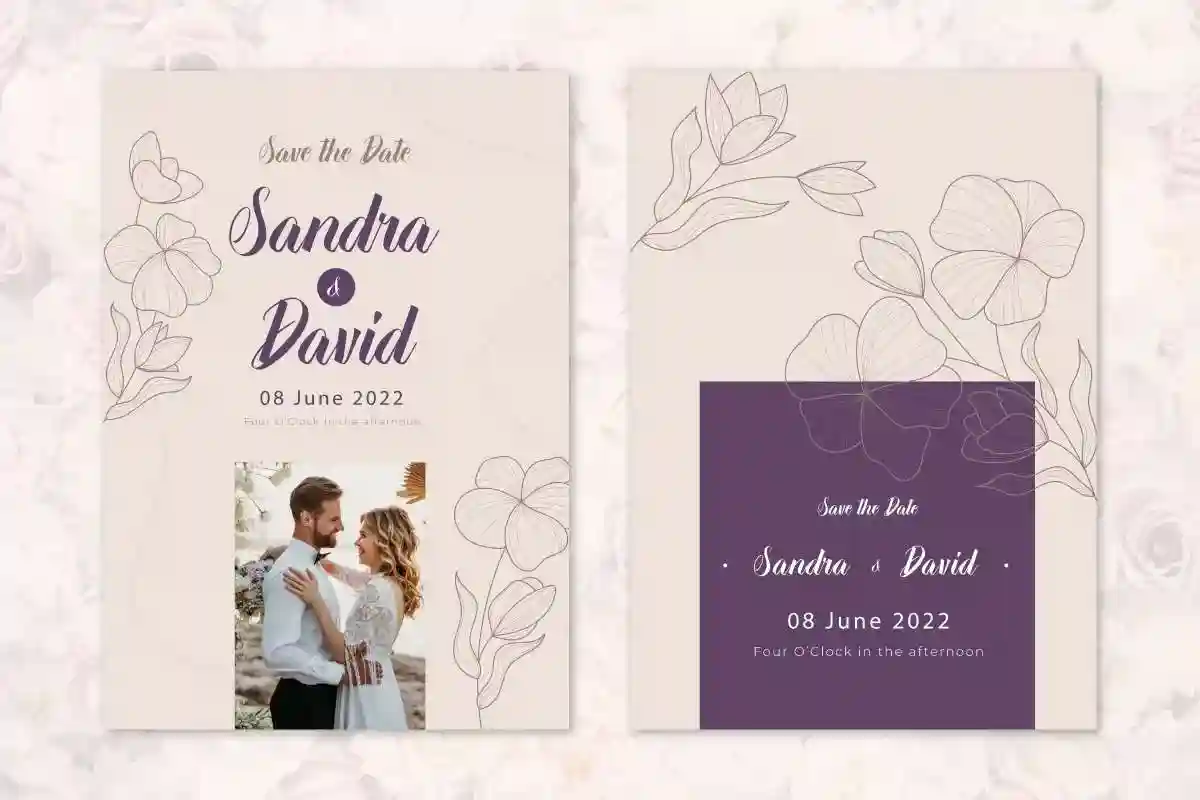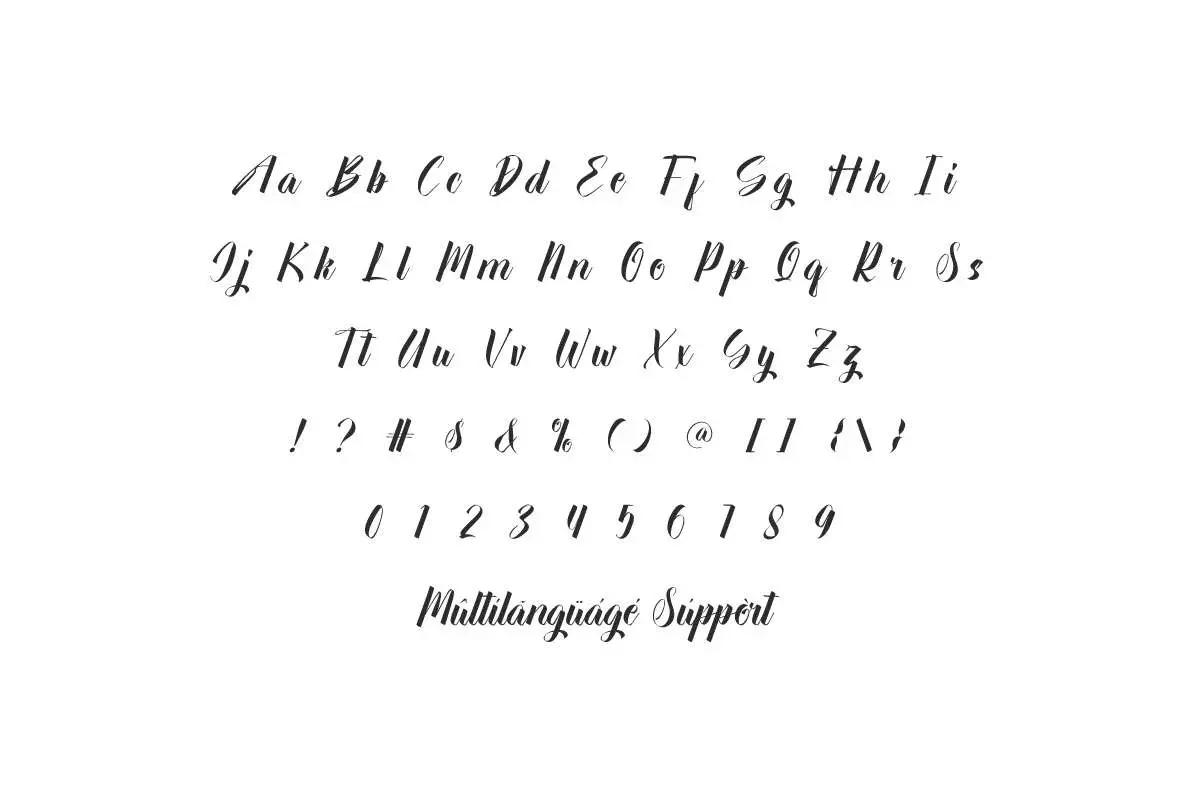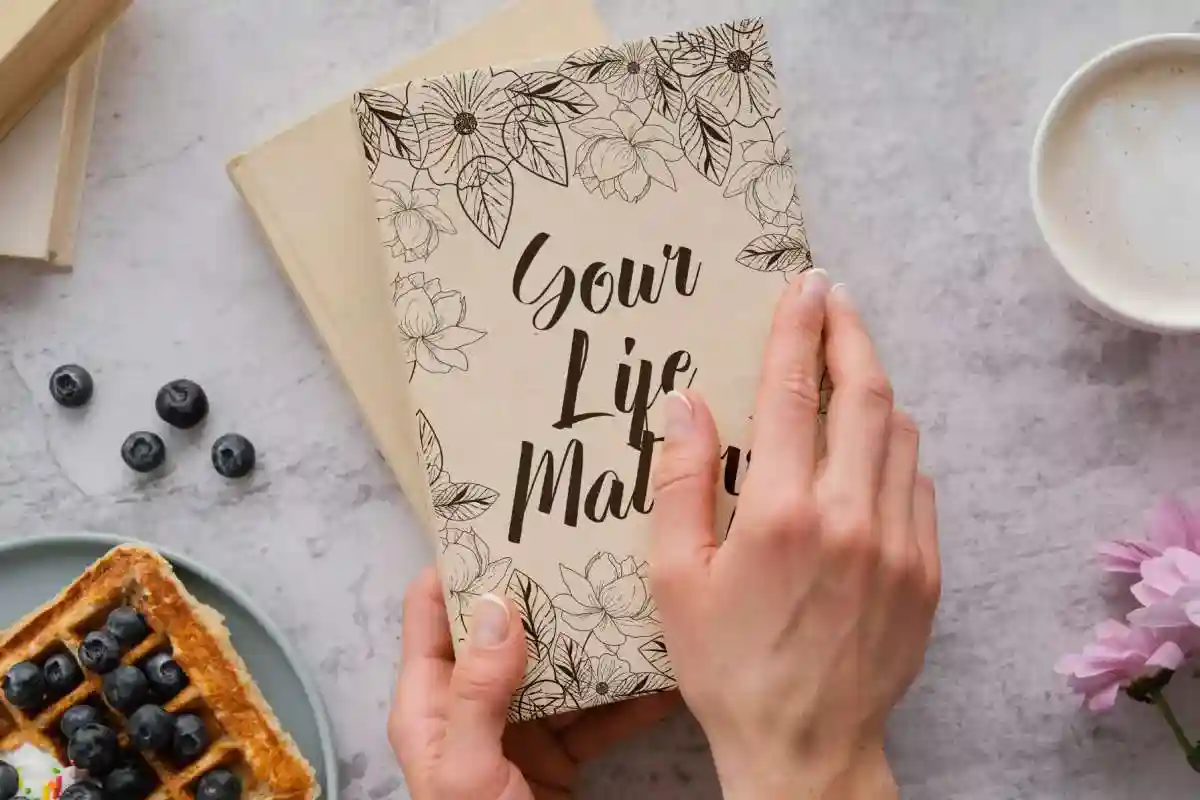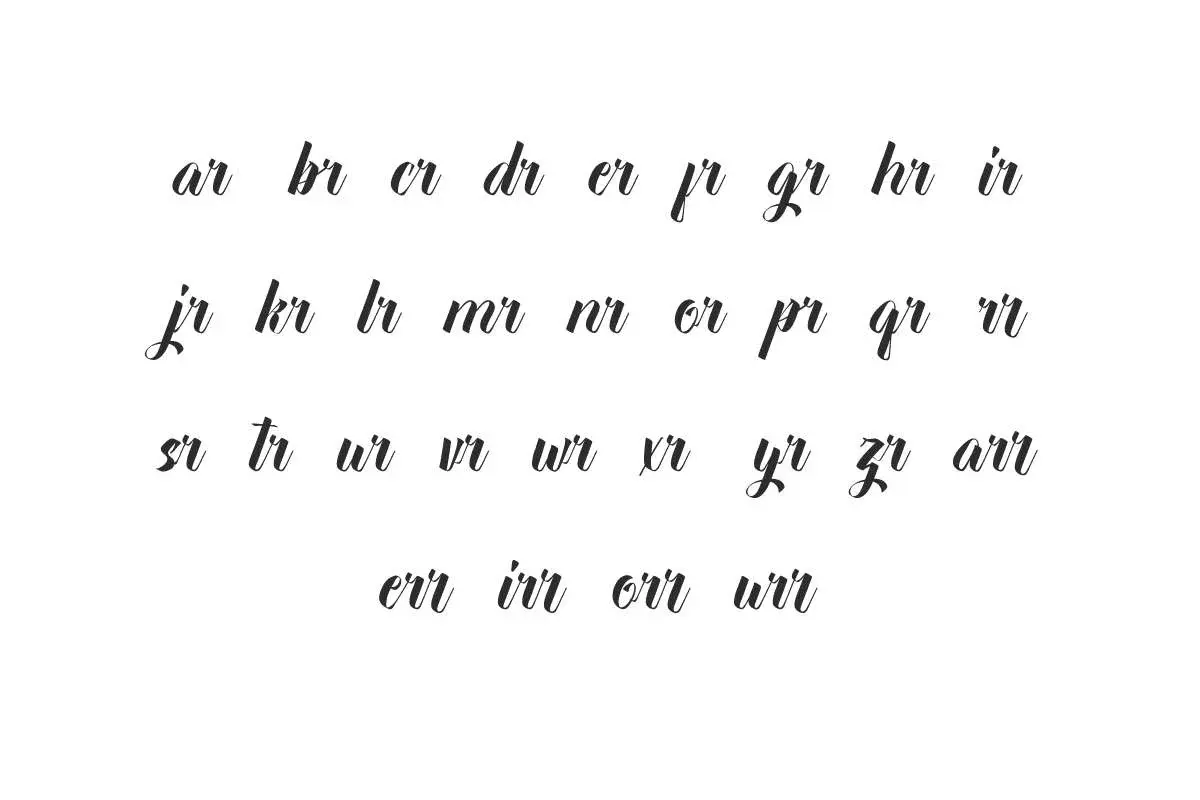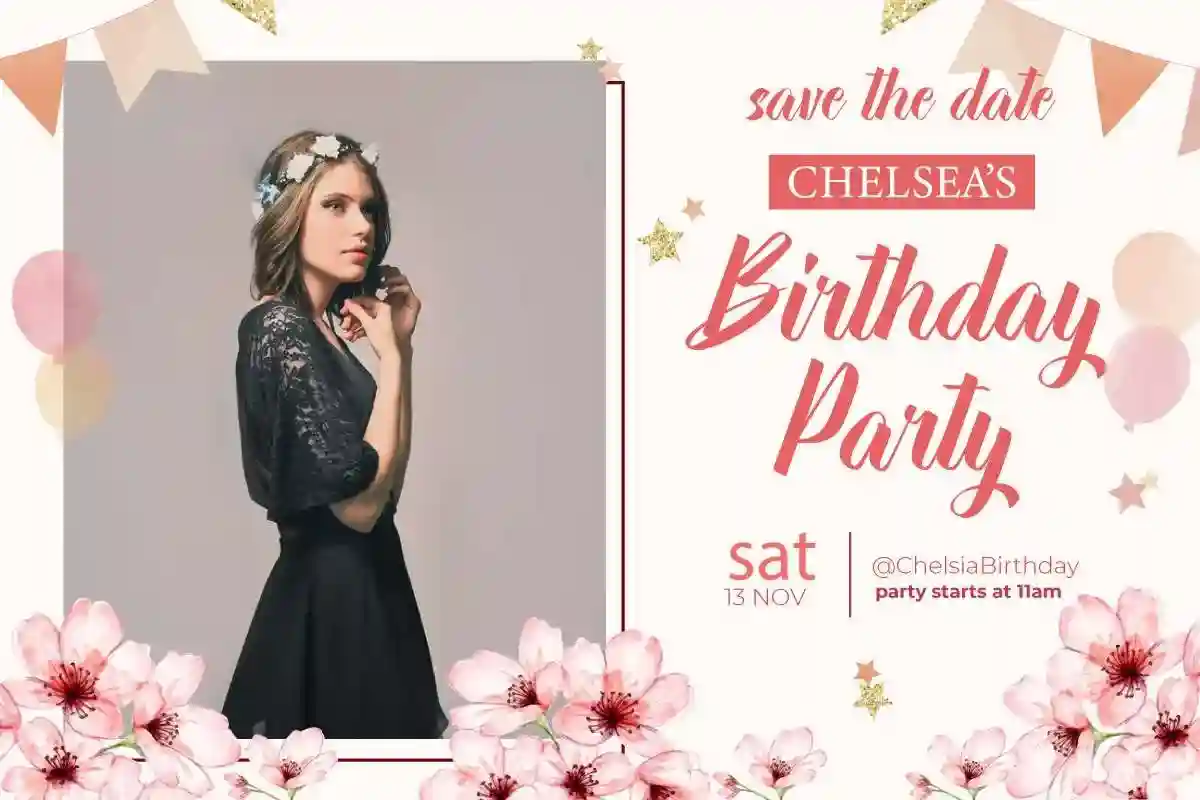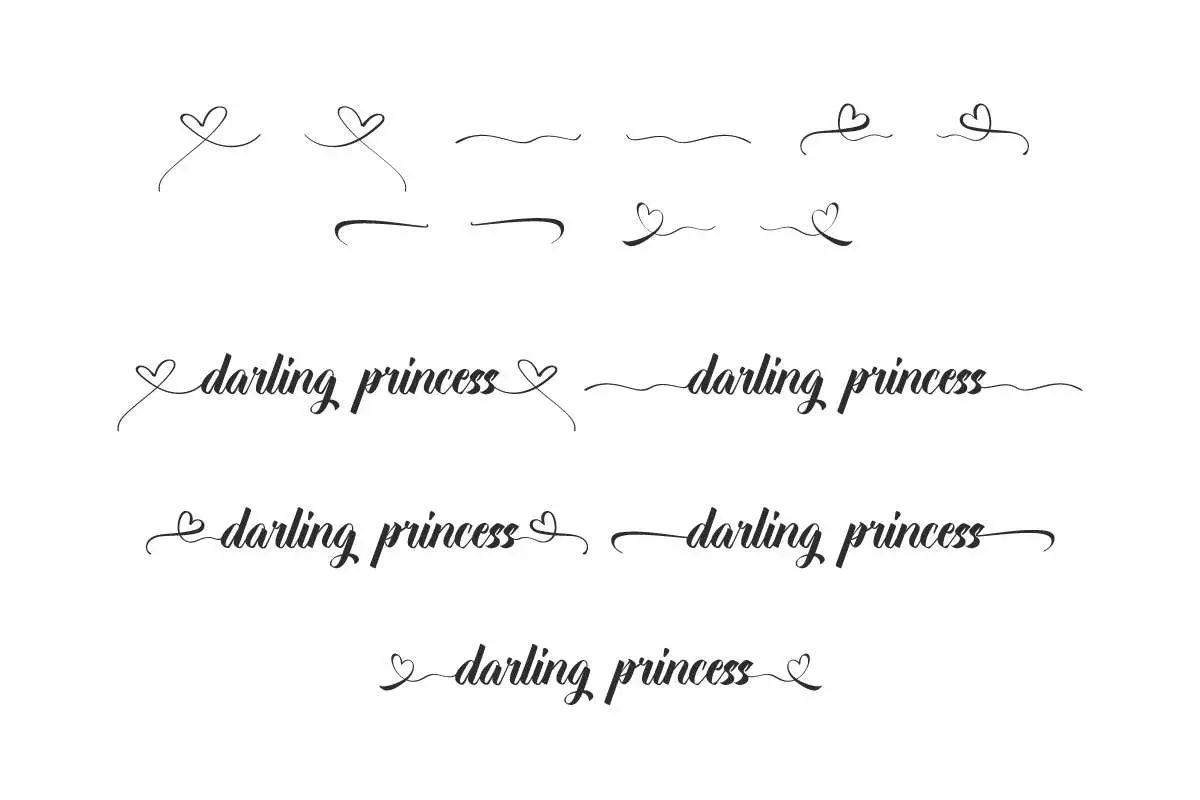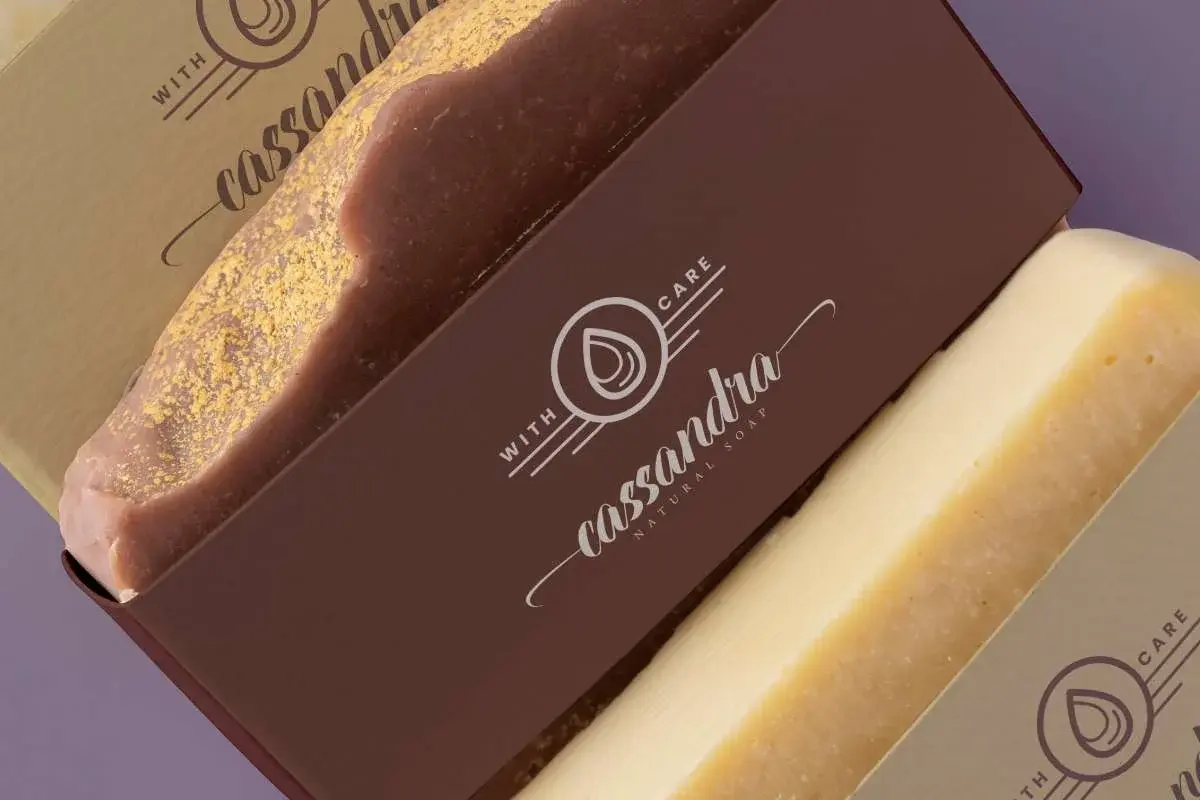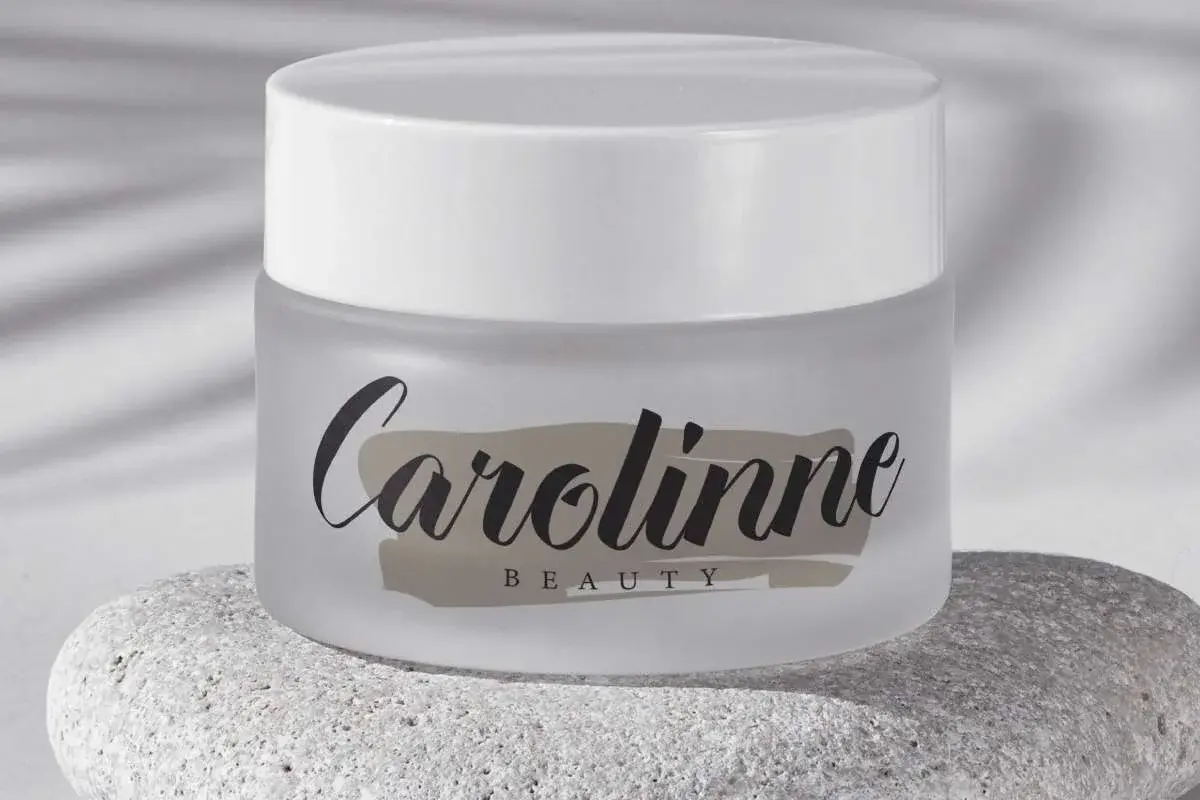
Darling Princess Font
Darling Princess Font is a dazzling calligraphy with romantic princess theme. It will be great for cosmetic brands, movies, title, wedding invitation, etc
Darling Princess Font is a lovely script font in a modern calligraphy style. It has a clean and easy to read that will add to the beauty of your designs, such as brand logo, brochure, business card, cover, invitation, label, product packaging, quote, sticker, title, watermark, website, and much more!
Darling Princess Font comes with a full set of Uppercase and Lowercase Basic Characters, Number, Punctuation, Symbol. This font also features with ligature and swoosh characters to make it perfectly bound and add aesthetic value to the font. Use this for your business industry such as, cosmetic, furniture, restaurant, skincare, printing, publishing, wedding, etc.